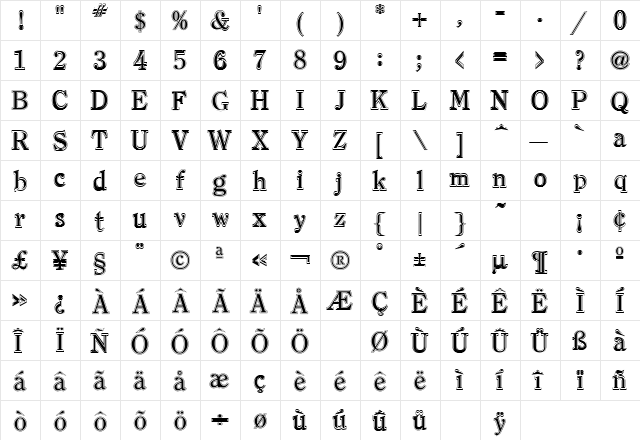
Clearface Contour Regular
Design Context for Clearface Contour Typeface
Clearface Contour offers clean, dependable letterforms without strong stylistic allegiance, making it a practical choice for designers who need flexibility.